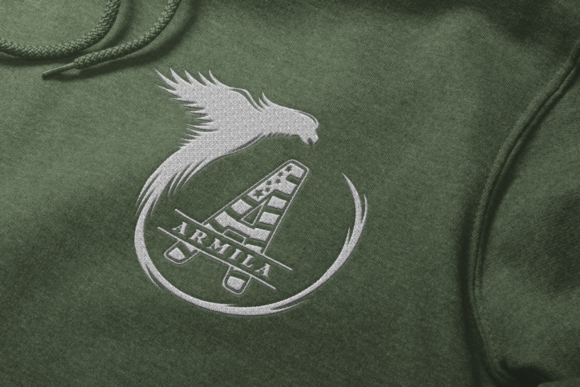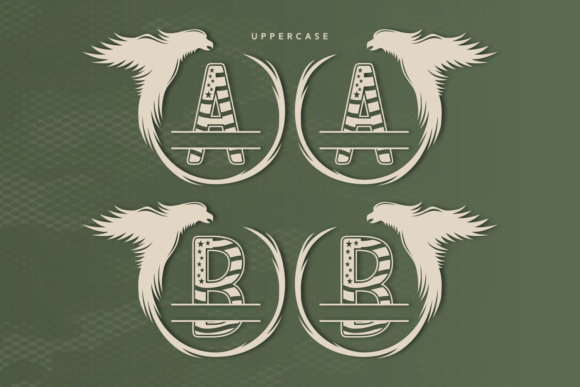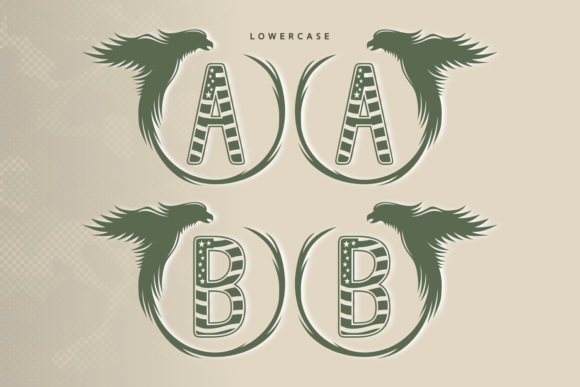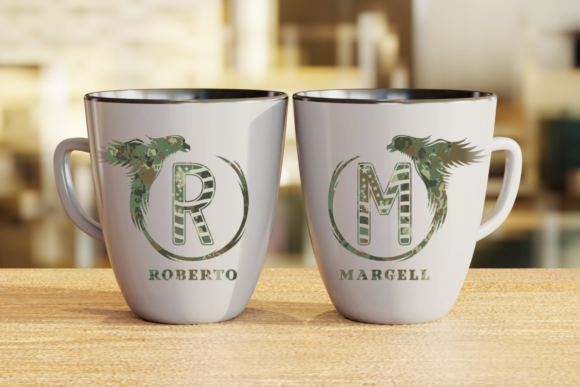
Eagle Star Font: Elevate Your Designs with a Dainty and Unique Decorative Font
Are you a designer or crafter looking for a font that can add a touch of elegance and sophistication to your work? Look no further than the Eagle Star Font. This beautiful, dainty, and unique decorative font is perfect for anyone who wants to create stunning letters, invitations, and designs that stand out from the crowd.
What Makes Eagle Star Font So Special?
Eagle Star Font is a chic and lovely looking font that can instantly elevate your designs. Its unique and decorative style makes it perfect for a variety of projects, from wedding invitations and greeting cards to branding and packaging. With Eagle Star Font, you can add a touch of whimsy and romance to your work, making it perfect for designers and crafters who want to create something truly special.
One of the best things about Eagle Star Font is that it is PUA (Private Use Area) encoded. This means that you can access all glyphs and swashes with ease, giving you complete creative control over your designs. With PUA encoding, you can easily access and use the font’s built-in features, such as ligatures, stylistic alternates, and swashes, to create truly unique and eye-catching designs.
Eagle Star Font is versatile and can be used for a wide range of projects, including:
- Branding and packaging
- Signs and posters
- Digital art and illustrations
Whether you’re a professional designer or a crafter who loves to create things in your free time, Eagle Star Font is the perfect addition to your font collection.
Why Choose Eagle Star Font?
There are many reasons why Eagle Star Font is a great choice for designers and crafters. Here are just a few:
- Unique and eye-catching: Eagle Star Font is a one-of-a-kind font that will make your designs stand out from the crowd.
- Elegant and sophisticated: This font is perfect for creating elegant and sophisticated designs that are perfect for special occasions.
- Easy to use: With PUA encoding, you can easily access and use the font’s features to create stunning designs.
- Versatile: Eagle Star Font can be used for a wide range of projects, from wedding invitations to digital art.
Tips for Using Eagle Star Font
Here are a few tips for using Eagle Star Font in your designs:
- Pair it with a simple font: Eagle Star Font is a decorative font, so it’s best to pair it with a simple font to create contrast and make your design stand out.
- Experiment with different sizes: Eagle Star Font looks great in a variety of sizes, so don’t be afraid to experiment and find the perfect size for your design.
- Use it for headings and titles: Eagle Star Font is perfect for headings and titles, where you want to make a statement and add some visual interest to your design.
Eagle Star Font is a beautiful, dainty, and unique decorative font that is perfect for designers and crafters who want to create stunning letters, invitations, and designs. With its PUA encoding and versatile style, it’s easy to use and can be used for a wide range of projects. Whether you’re a professional designer or a crafter who loves to create things in your free time, Eagle Star Font is a great addition to your font collection.